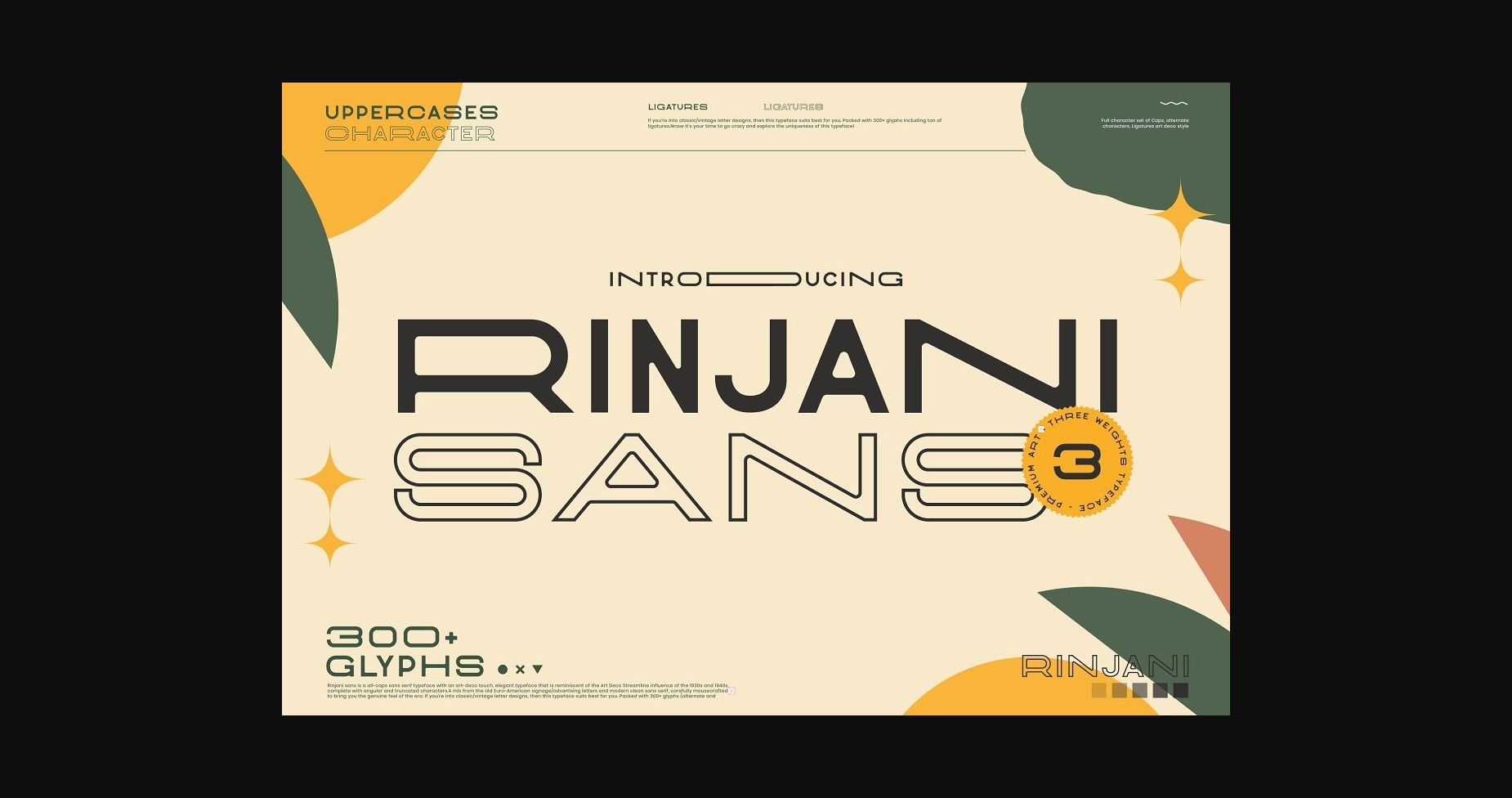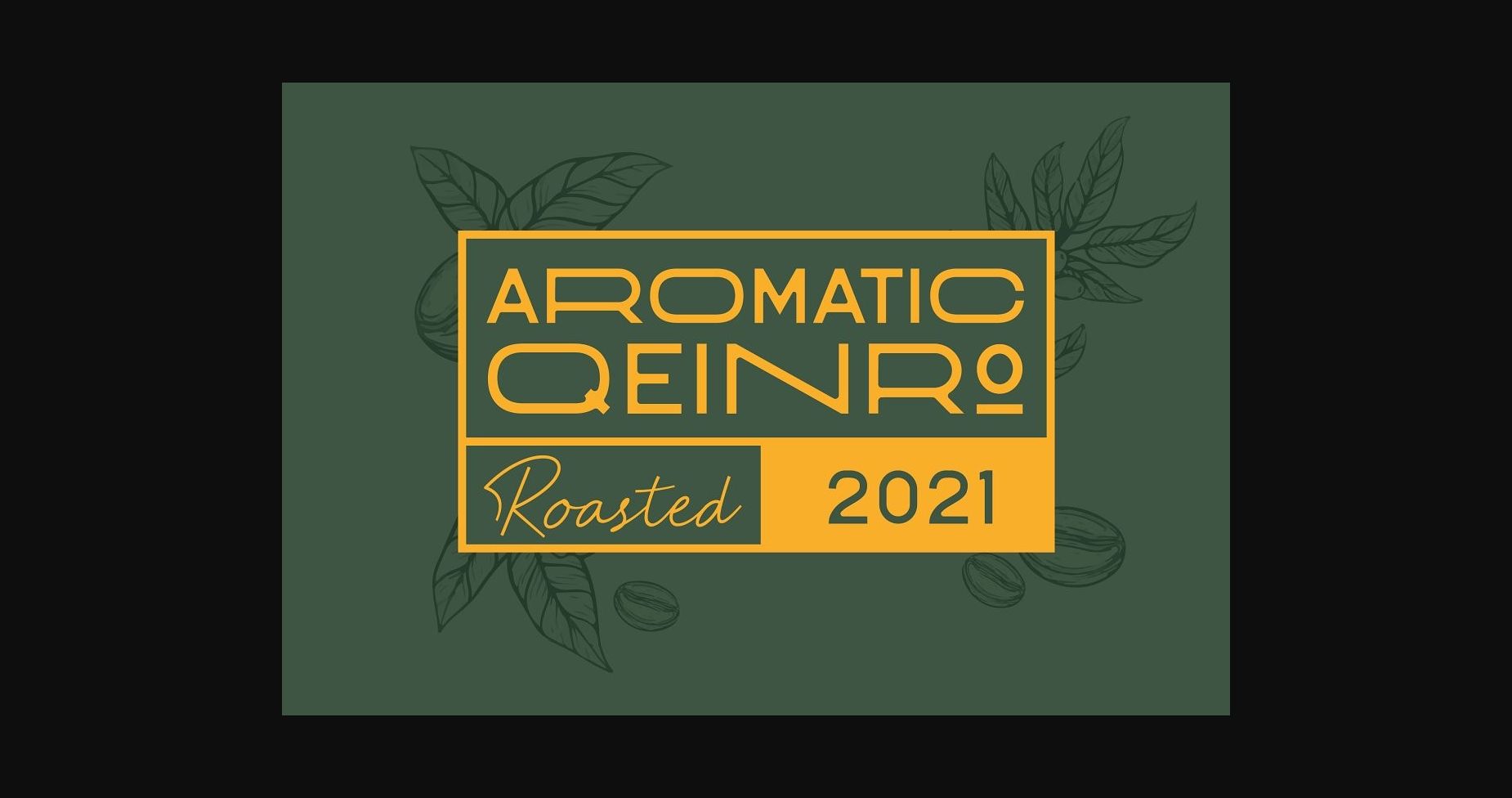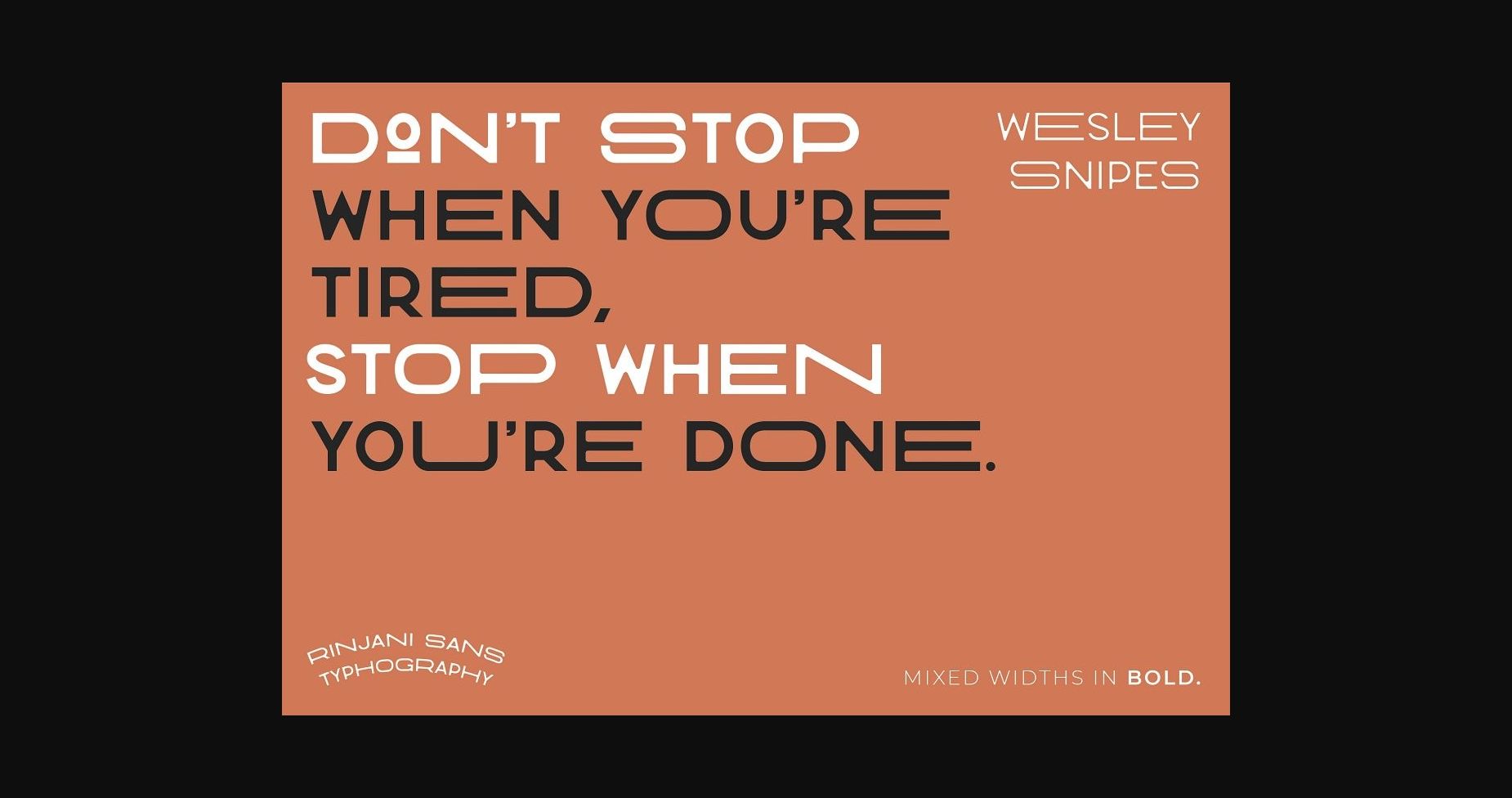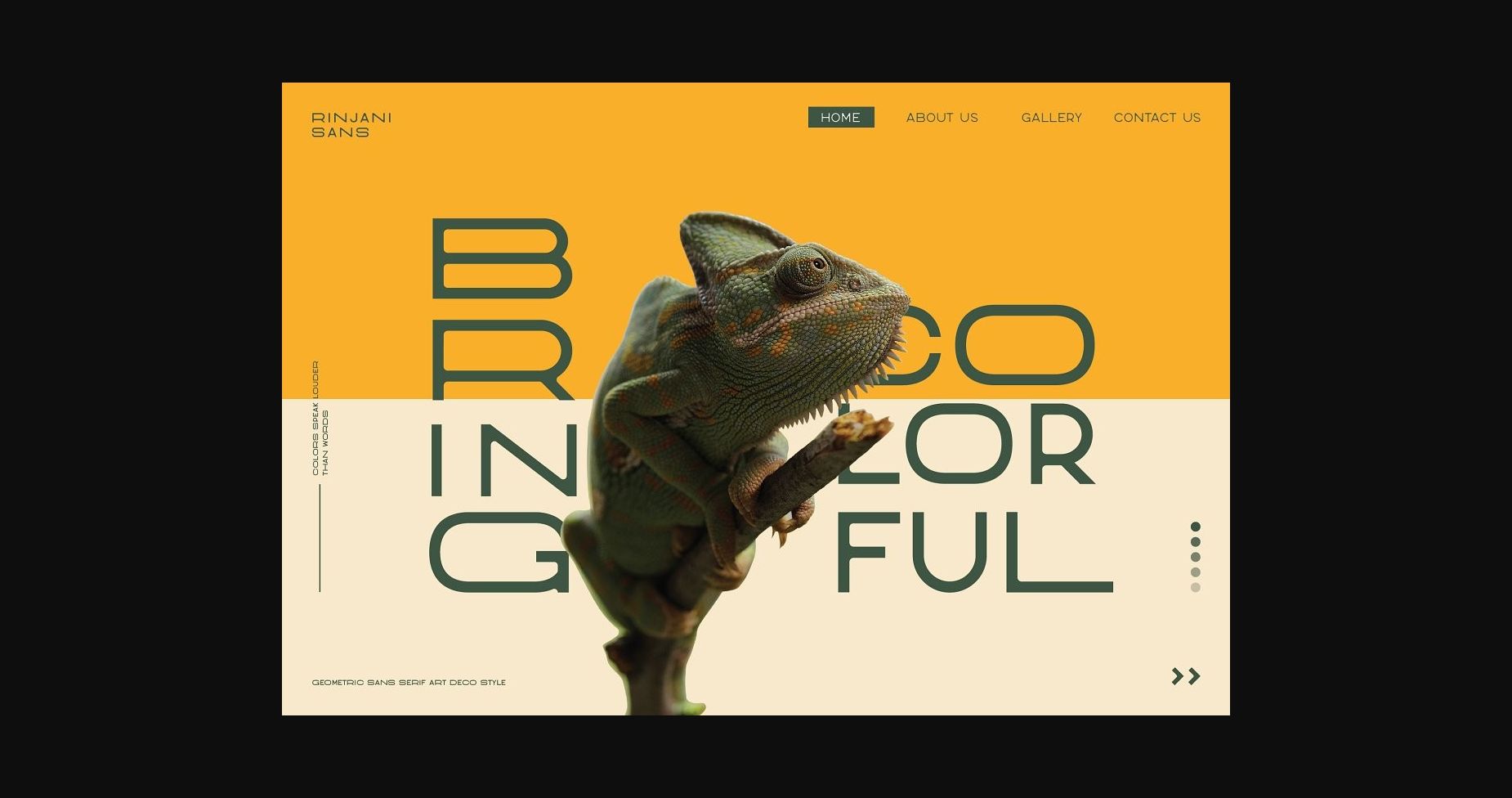
Rinjani Sans Font
About Rinjani Sans Font
Rinjani sans is an all-caps sans serif font with a contemporary feel and a vintage-futuristic art-deco touch. A mix of the old Euro-American signage/advertising, this font is carefully crafted to bring a genuine feel to your designs! This font is PUA encoded which means you can access all of the glyphs and swashes with ease!